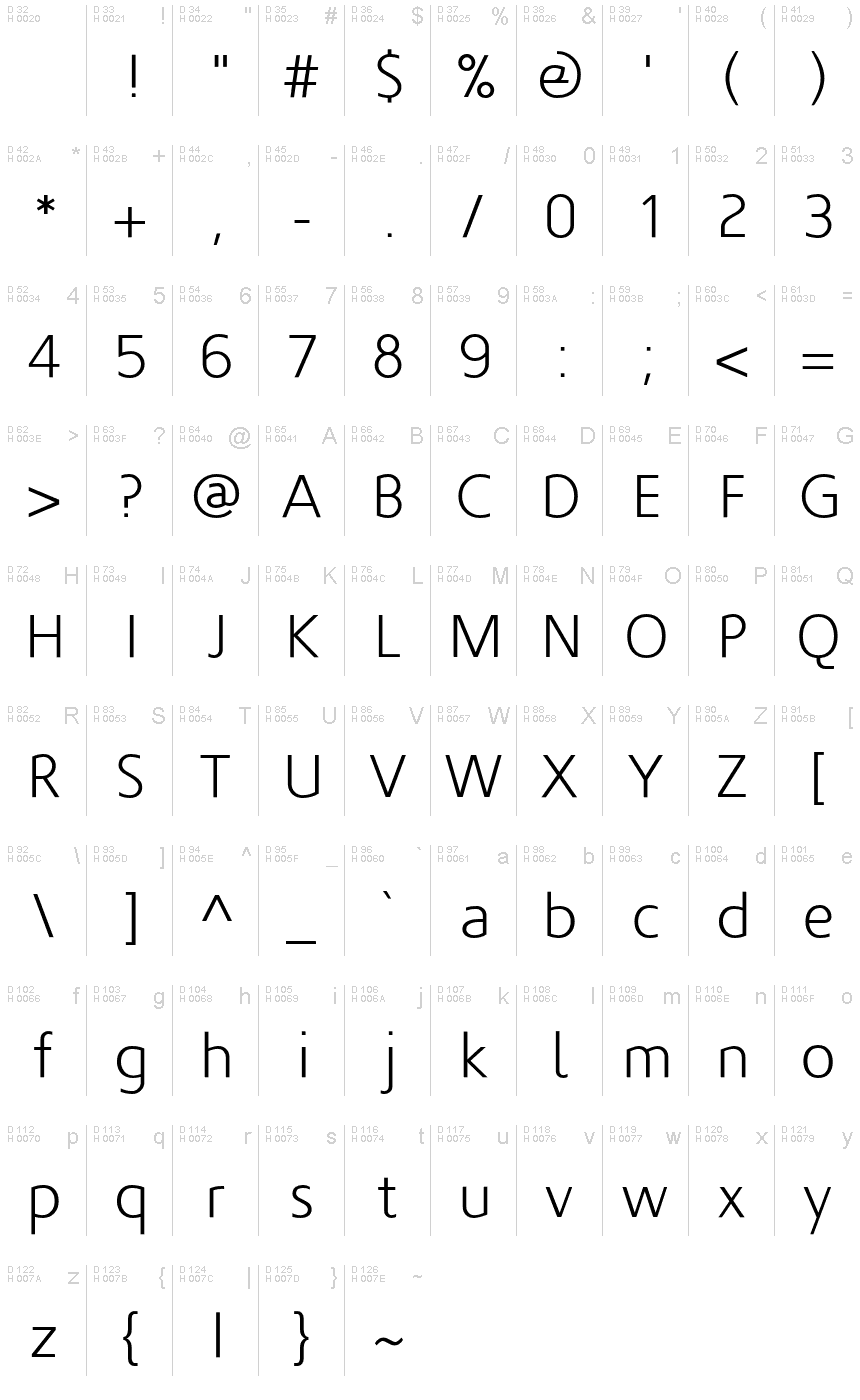
Fortheloveoffontslight
For the Love of Fonts Light is a modern, clean and stylish sans-serif typeface designed by Peridot Kitchen-Sink. Its light weight and minimalist design make it perfect for projects that require a touch of elegance, such as wedding invitations, fashion magazines or high-end branding. The font family also includes a semi-bold and bold version, making it versatile for various design needs. With its easy-to-read letters and simple yet sophisticated style, For the Love of Fonts Light is an excellent choice for any project that requires a touch of refinement.